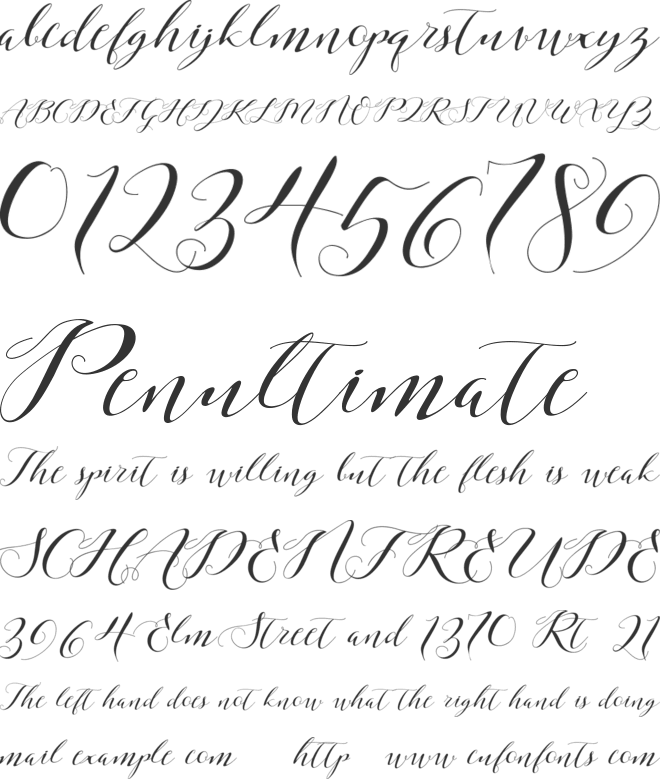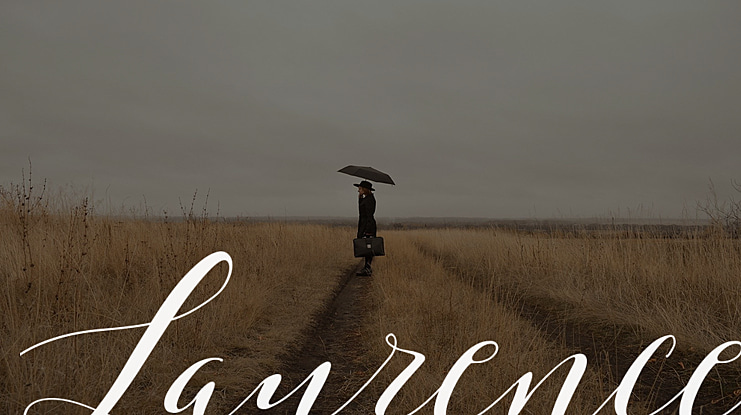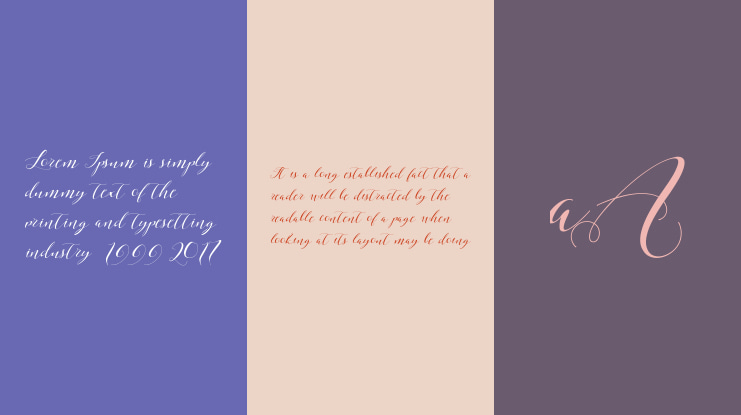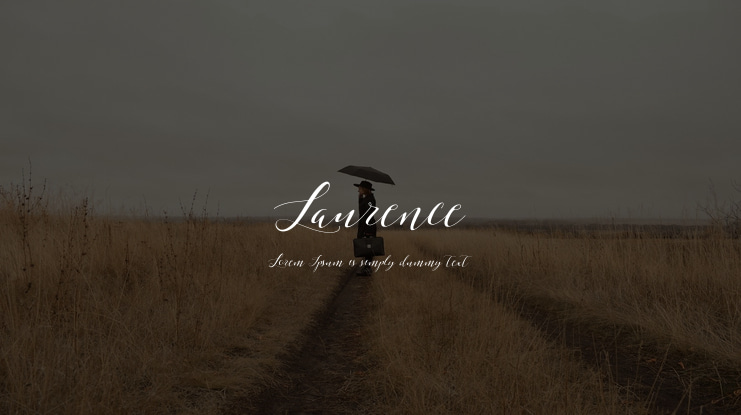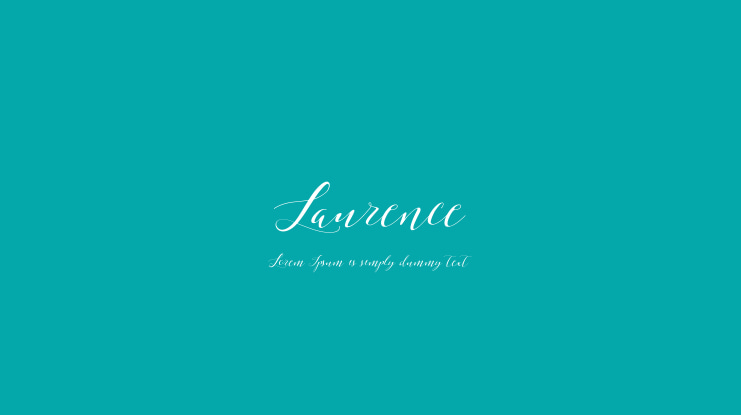
Laurence Font
Laurence Script is a stylish handwritten copperplate calligraphy font. It combines the characteristics of copperplate as well as contemporary typefaces. It features a dancing baseline, but still has a classic and elegant touch.It can be used for various purposes such as headings, signatures, logos, wedding invitations, t-shirt design, letterheads, signage, labels, news, posters, badges etc.Purchase the full font at Fontspring (https://www.fontspring.com/fonts/bonjour-type/laurence-script).